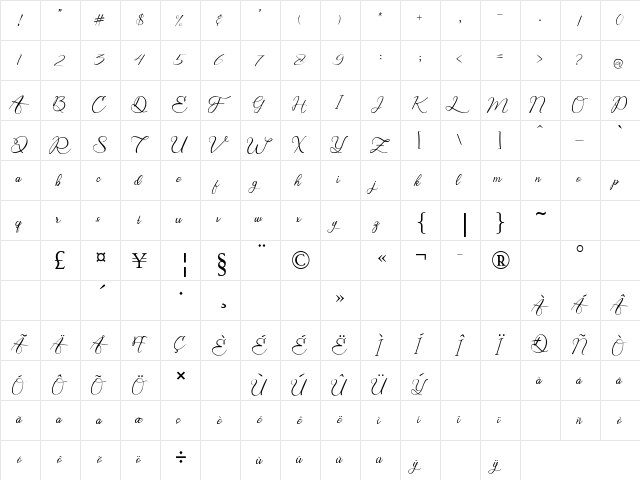
Bring Heart Regular
| Designer | Rochadi Sudarma |
Design Context for Bring Heart Typeface
Bring Heart is a composed and adaptable typeface that performs quietly and consistently across a wide range of design contexts.